Smart logo design can enable a brand to stand out from a sea of competitions. A good logo can create a sense of credibility and establish trust with prospective customers even before they experience your product or service. On the other hand, a bad logo could turn people off and cause them to dismiss your brand, even before giving it a try. This is why the choice of font used in your logo is an important decision you should make. There are hundreds of fonts out there. Which font is right for your logo?
LogoAI's intelligent logo maker has been generating amazing logo design ideas across multiple industries. Today, we have analyzed our database of more than 10,000 logos and come up with top 10 most popular free fonts used for successful branding. Each font has a defining characteristic that could resonate with your logo design, so take your time to browse through the full list before you make your selection.
Logo Font #1: Trajan
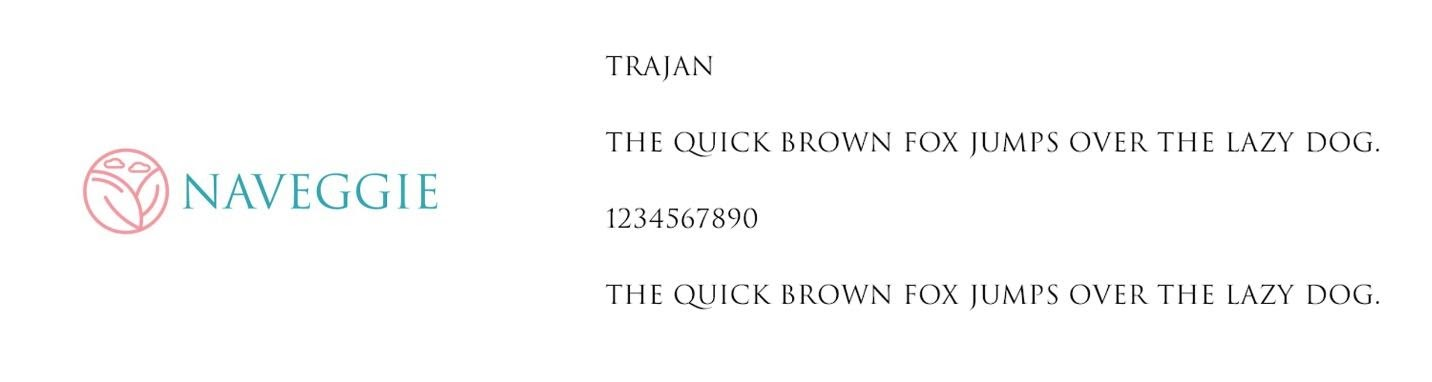
If low-key sophistication and disciplined precision is the essence of your brand, then Trajan is a good choice for your logo design. This sharp font is suitable for both corporate and creative brands; it can complement an austere logo or serve as a refreshing contrast to a more unconventional design. The refined spacing between the characters makes it easily readable and memorable to your customers.
Logo Font #2: Bodoni MT
A good number of businesses in the fashion industry use Bodoni MT in their logo design, and for good reason. The font is elegant and polished, perfect for high-end luxury goods and services. Bodoni MT is able to stand on its own as a design element, but works best with effective visuals in the logo that showcases the font’s alternating thin and thick strokes.
Logo Font #3: Choplin
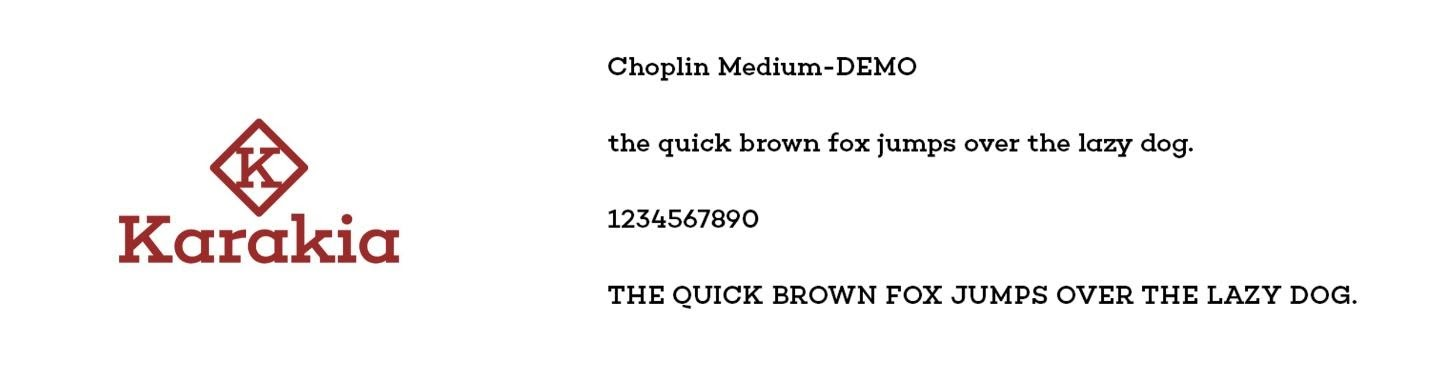
The Choplin Medium font is unmistakably modern, but it stands apart from other modern fonts due to its unique use of geometry and strong line structure. It is a good font choice for industries where a striking design is essential to make an impactful first impression, particularly businesses where words take center stage, including online publications, news editorials or design work.
Logo Font #4: Varela Round – Regular
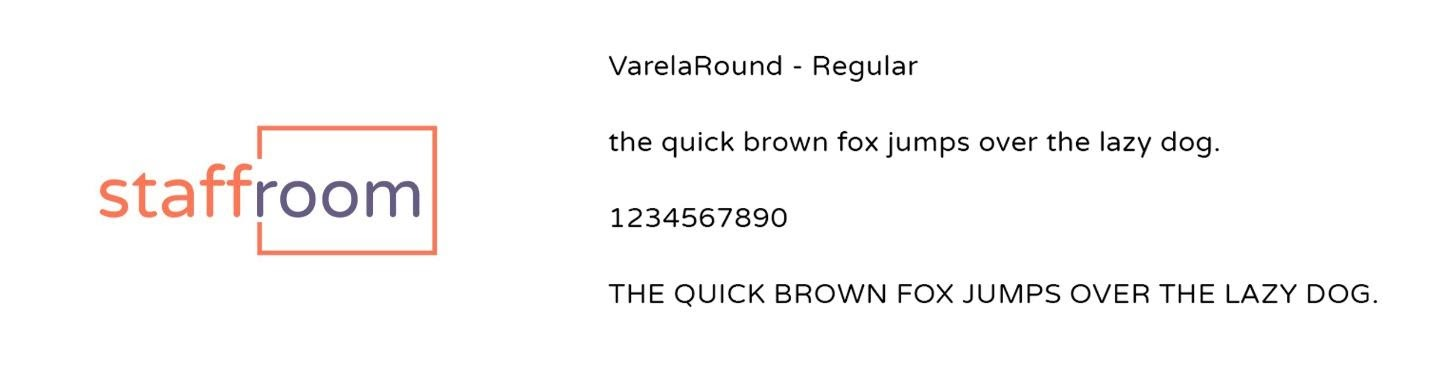
For a font that is easy on the eyes, Varela Round – Regular is a good choice. This soft font blends harmoniously with other elements placed alongside it, while still remaining distinct and memorable. Due to its readability, Varela Round – Regular is excellent for businesses that deal in web content or printed material, producing goods as recipe books or restaurant menus. This font has soothing edges and minimalist lines that can be easily paired with other design elements, and looks good, in big or small font sizes.
Logo Font #5: Chewy
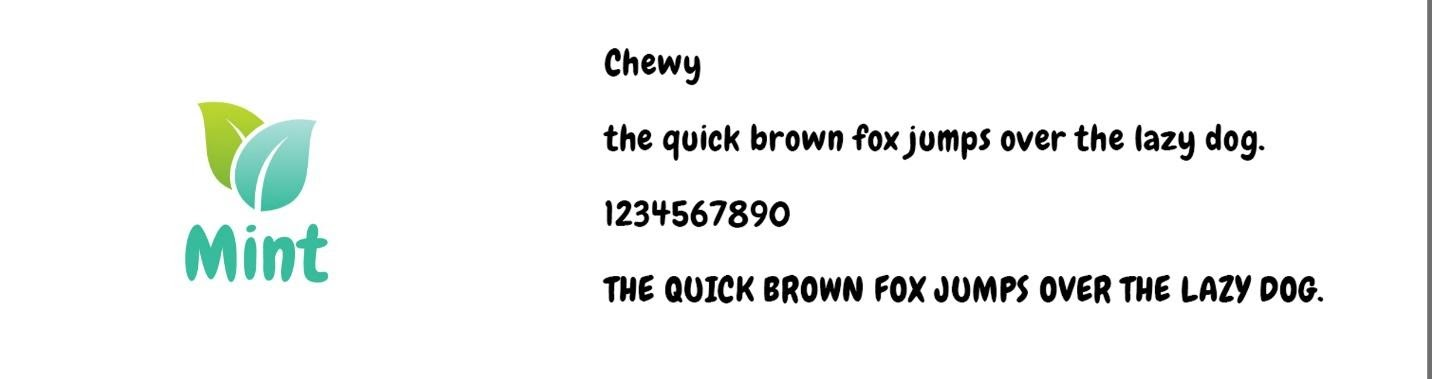
One look at the Chewy font tells you that the brand is a playful, creative one. With its soft curves and playful proportions, it brings to mind a child’s handwriting, or those logos seen on candy wrappers. Using color contrasting to highlight the font’s casual and playful appeal and combining it with a soft-edged and organic-looking graphic would make for a refreshing logo design. This font is perfect for businesses that deal with sweets, young children’s toys or baby clothes.
Logo Font #6: Smithen
Smithen resembles handwriting and adds a touch of humanity, relatability, sincerity and softness to a logo design. This font is suitable for small businesses that require a personal touch – baked goods, handcrafted art, graphic design, beauty&spa, and photography are some classic examples. Smithen also looks good paired with other sans-serif font types, which can be used as a tagline to add more detail to a logo, such as the name of the business owner.
Logo Font #7: Ironclad
For an elegant, but modern-looking font, you can’t go wrong with Ironclad. This font features an Art Deco-inspired design populated by circular elements, which makes it perfect for vintage fashion stores, restaurants, cafes and bars that feature an aesthetic reminiscent of speakeasies. It is also a good choice for boutique theaters that show indie movies or films made during the Prohibition Era.
Logo Font #8: Roboto
Roboto was developed by Google, and it shows in the font design. It is clean, modern and approachable, which makes it perfect for virtually all types of brands. However, due to its association with the Android system, it is perfect for game or software and application development studios. The font goes well with minimalist logos or cartoony graphics owing to its flexibility.
Logo Font #9: MAXWELLLIGHT
The MAXWELLLIGHT font has a pleasantly minimalist design owing to its thin lines and measured curves. Coupled with a playful logo, MAXWELL LIGHT would be quite suitable for businesses that run coworking spaces, digital marketing operations, or ad agencies. It has the perfect balance of clean and contemporary that makes for a versatile yet unique logo design.
Logo Font #10: Righteous